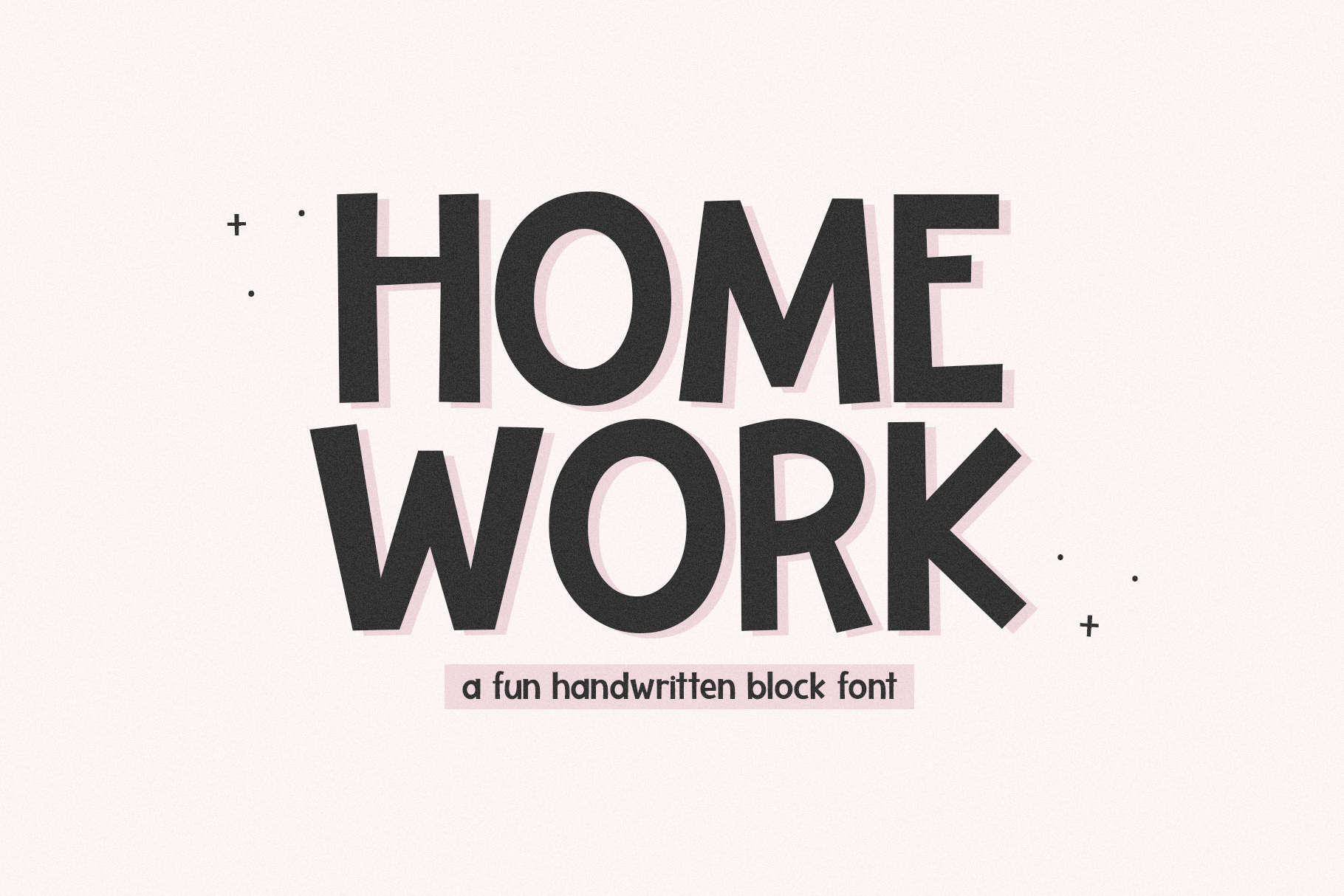
Homework | Fun Block Font
Homework is a fun handwritten font.
This font is perfect for your craft projects, svg files, procreate, teachers, social media quotes, shirts, stickers, and more!